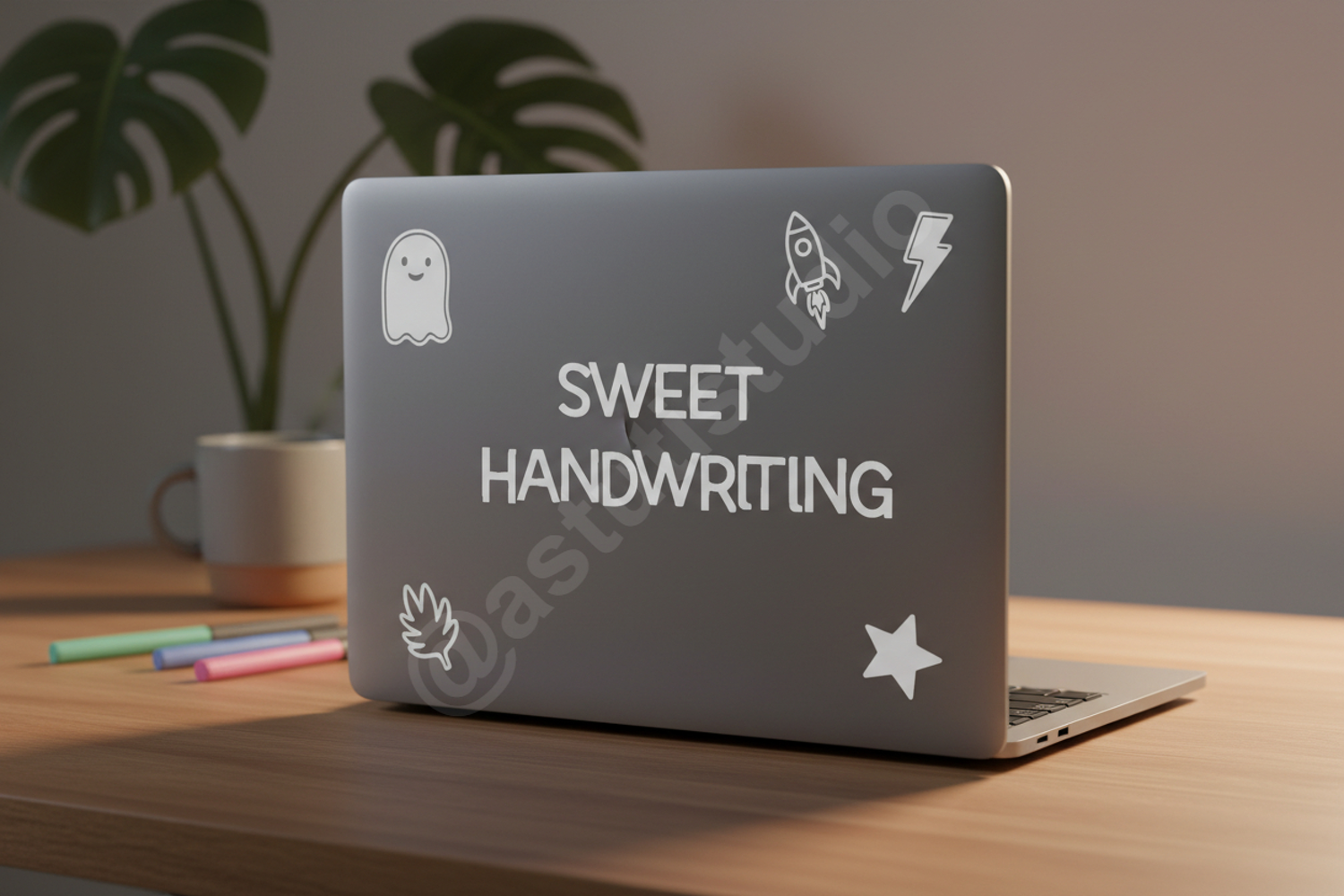
Jajaqa - Modern Geometric Display Font
Jajaqa
Elevate your creative projects with Jajaqa, a premium display font that seamlessly blends geometric precision with modern aesthetics. Designed for versatility and high-end appeal, Jajaqa offers a clean yet distinctive character that captures attention while maintaining professional readability. Whether you are working on a minimalist brand identity or a bold editorial layout, this font provides the perfect balance of style and function.
- Full set of uppercase and lowercase letters
- Comprehensive numbers, punctuation, and symbols
- Multilingual support for global design projects
- Specialized ligatures and alternates for custom looks